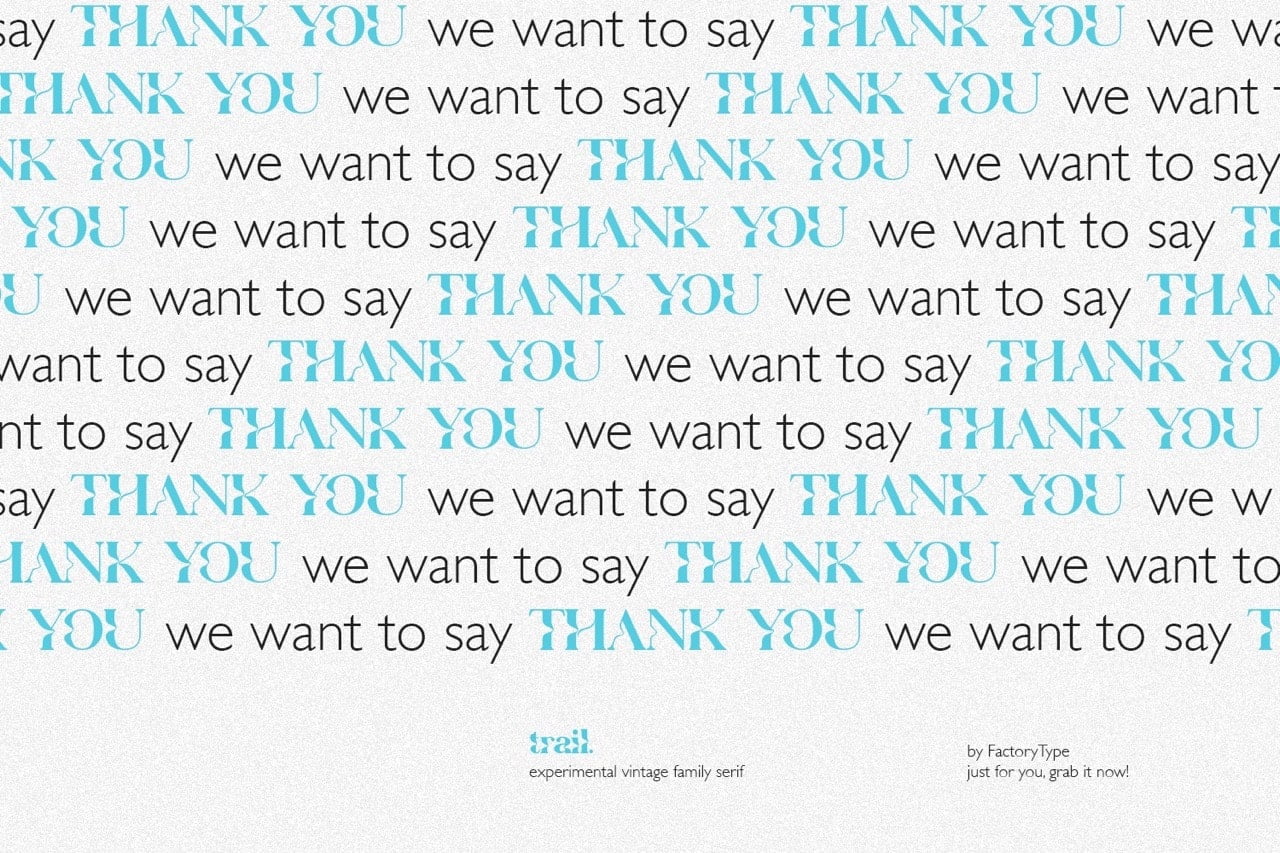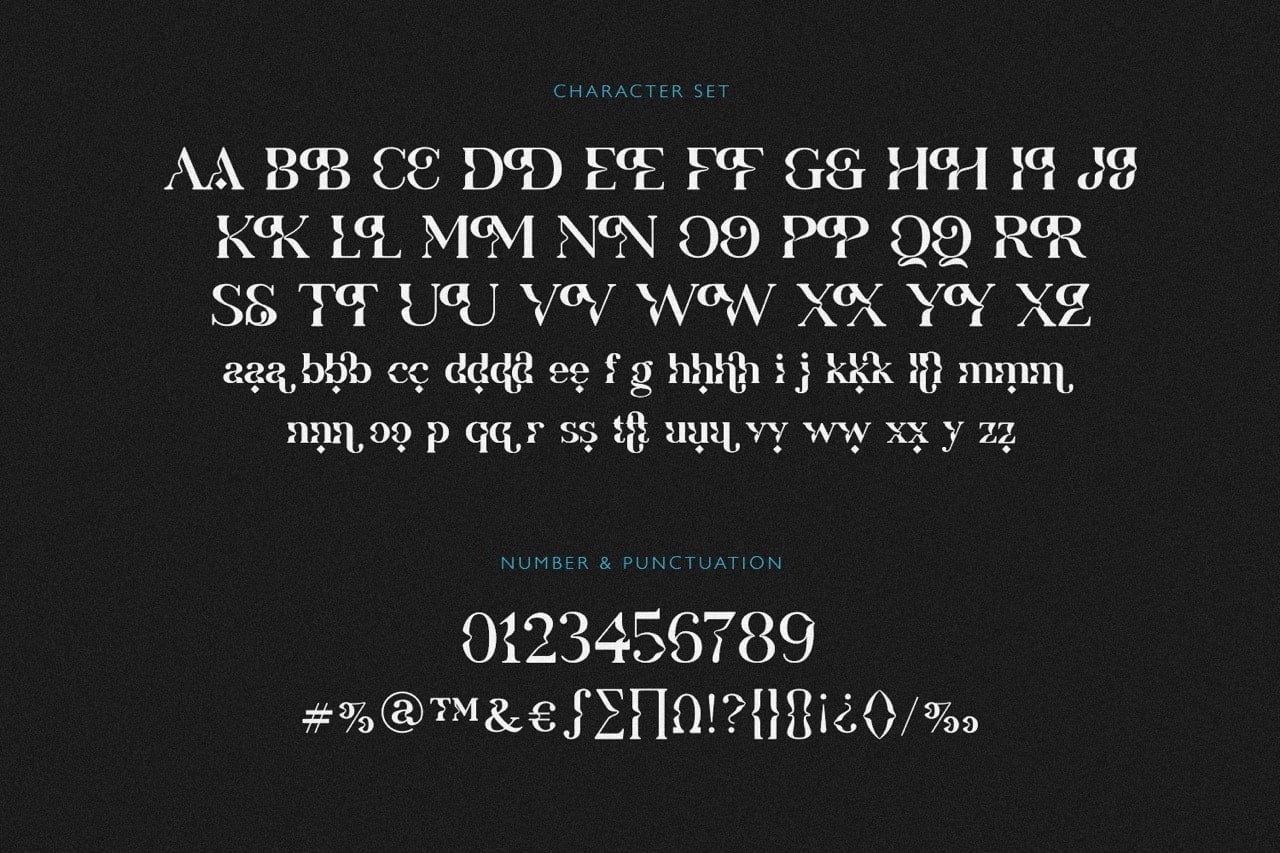
TRAIL is a typeface inspired by psychedelic, retro and modern design. Perfect for logos and branding, the variety of weights provide options for creating color, allowing you to design with a playful yet sophisticated style.
• 5 Weights
• Basic Latin A-Z and a-z
• Numerals & Punctuation
• Stylistic Ligatures and Alternate Glyphs
Trail Font